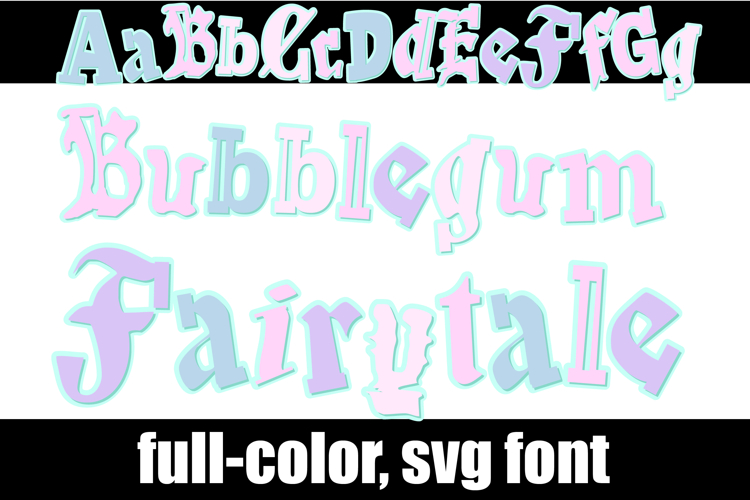
Bubblegum Fairytale Color Font
This full-color font is a bouncy calligraphy font in a princess color palette. There is an alt case of each letter with a different color combination.